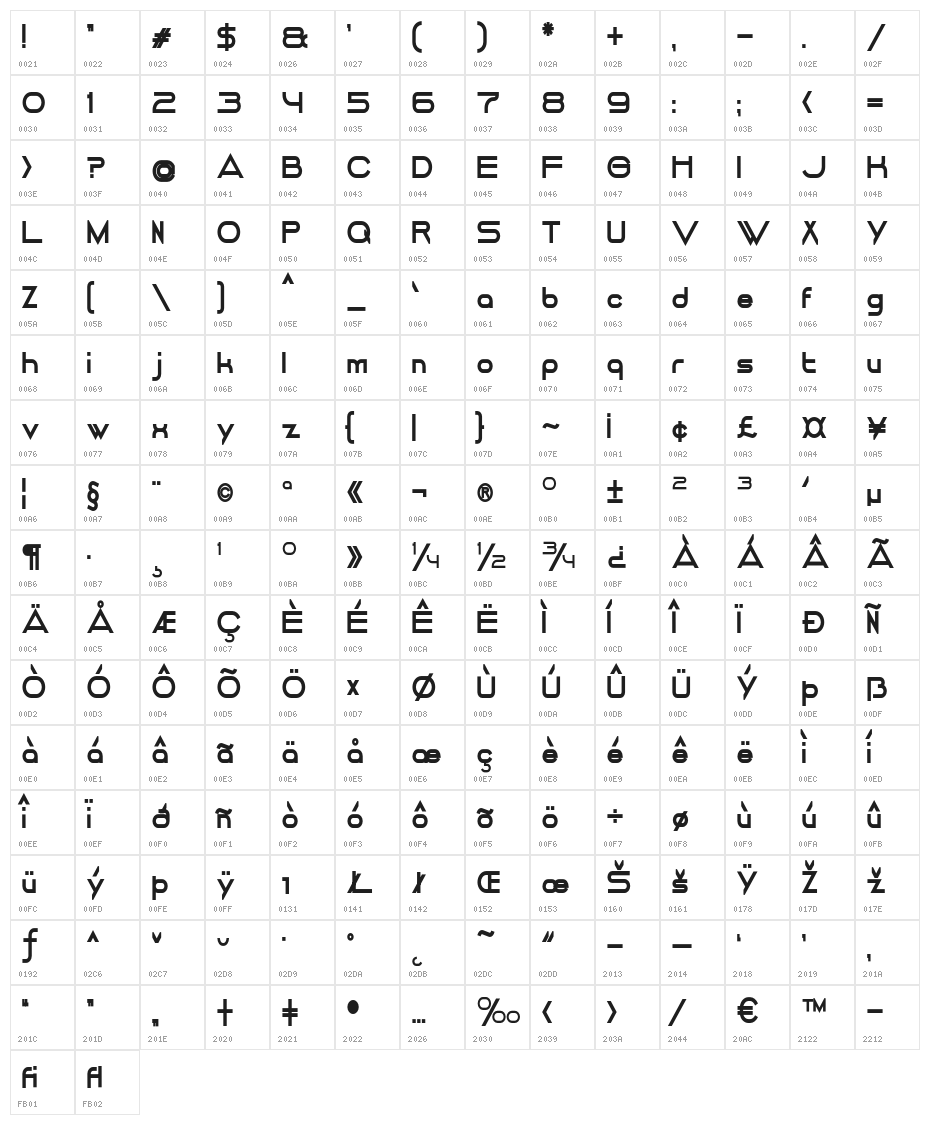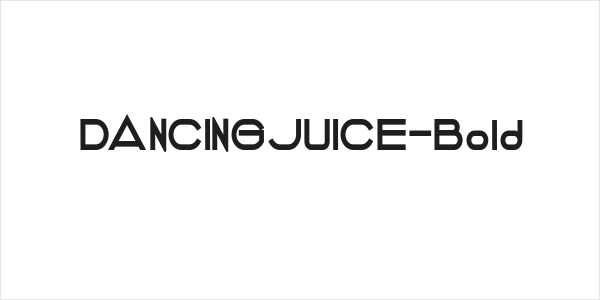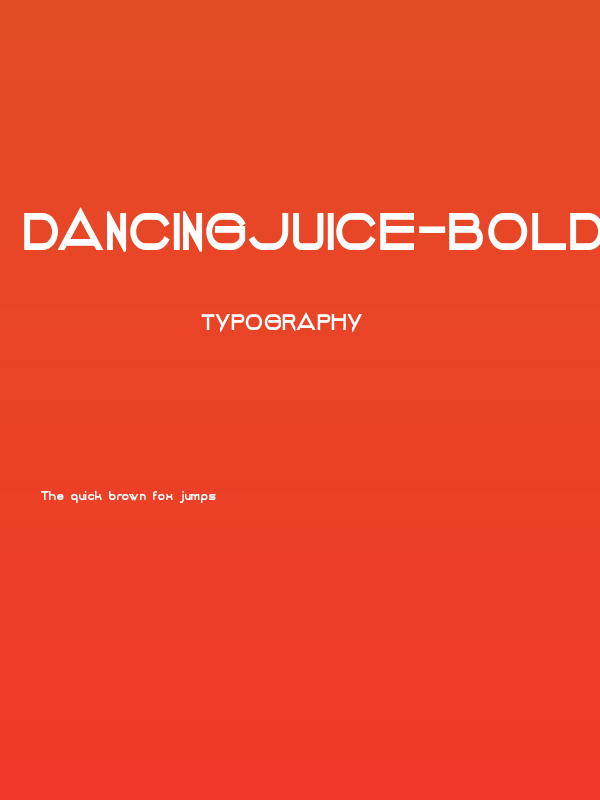
DANCINGJUICE-Bold Font
This font features a bold and modern design with geometric influences. The characters are structured with clean lines and sharp angles, giving it a futuristic and tech-inspired appearance. The uppercase letters are particularly striking, with unique cuts and curves that add a distinctive flair. The lowercase letters maintain a consistent style, ensuring readability while still offering a unique aesthetic. Numbers and special characters are designed to match the overall theme, providing a cohesive look across all text elements.
| Proposed Projects | Ideal for technology branding, modern advertising, and futuristic design projects. |